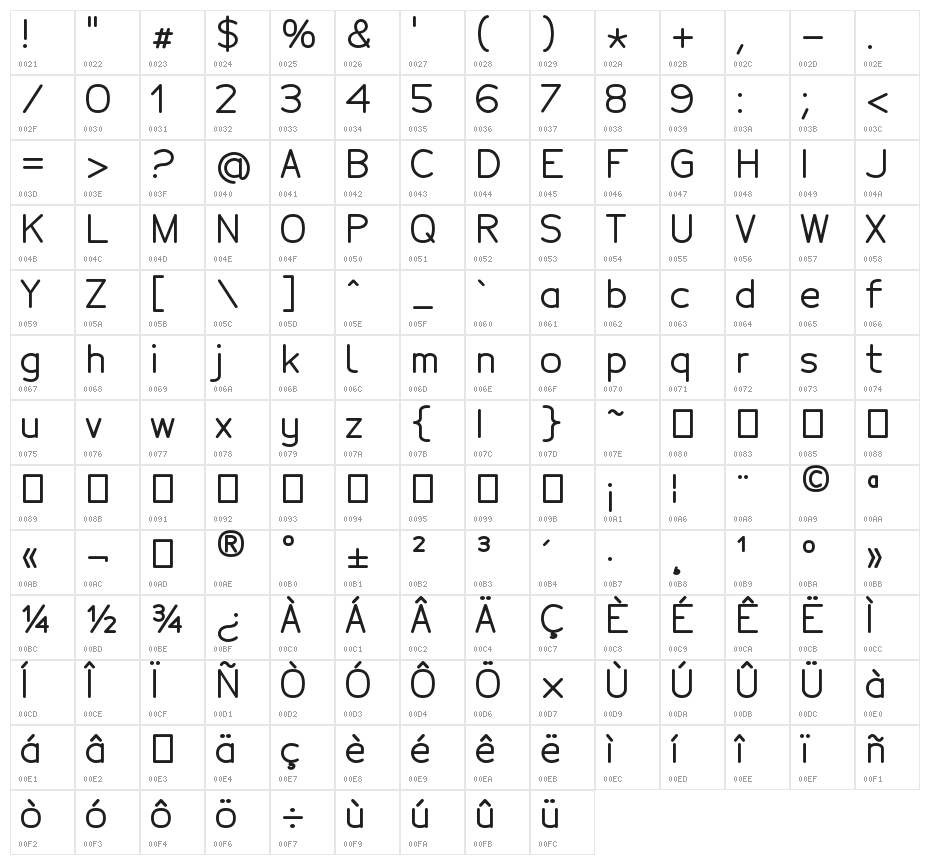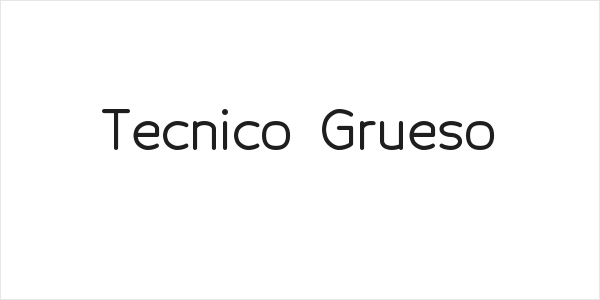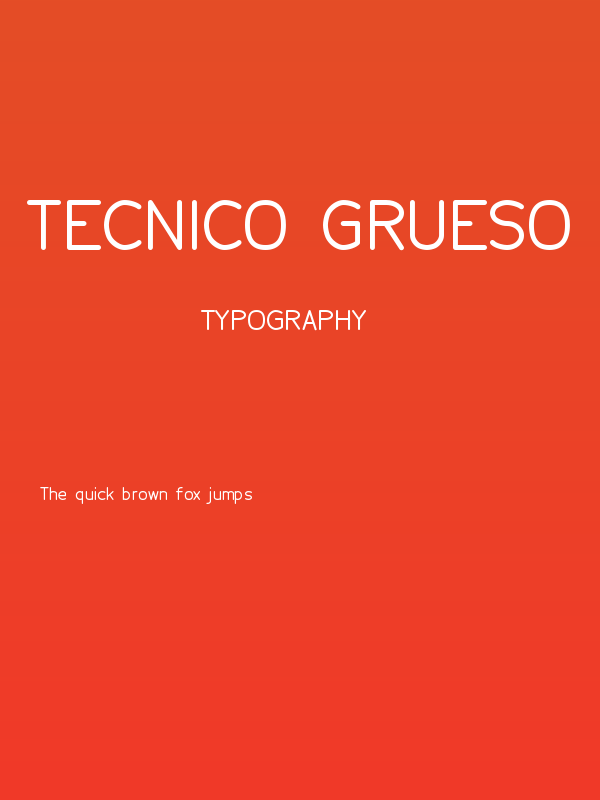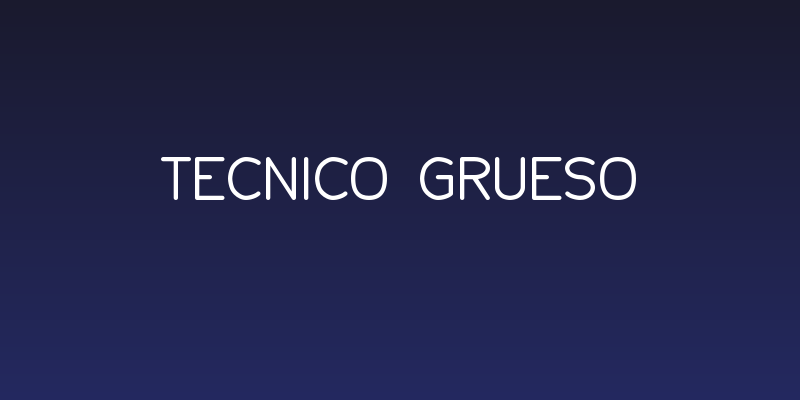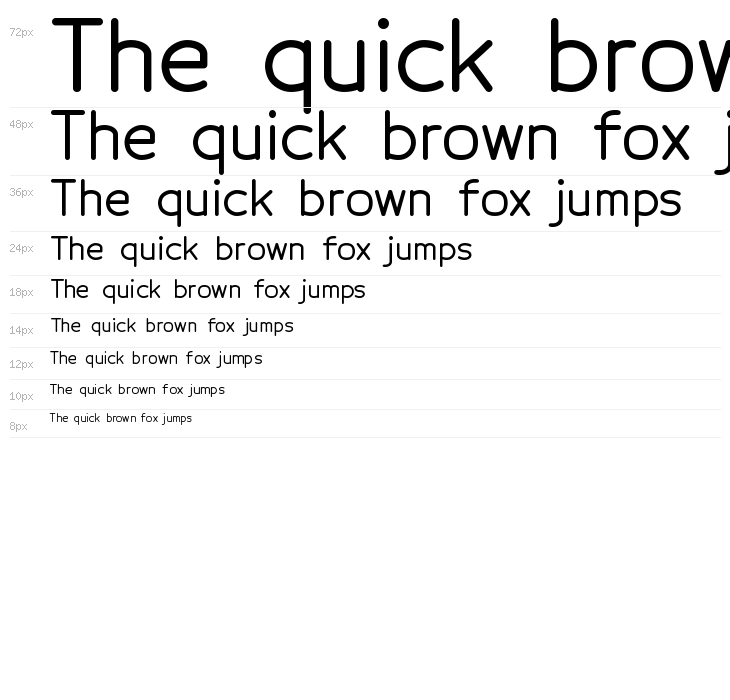
Tecnico Grueso Font
Tecnico Grueso Description
This font features a clean and modern sans-serif design with rounded edges, giving it a friendly and approachable appearance. The characters are evenly spaced, contributing to excellent readability. The uppercase and lowercase letters maintain a consistent style, with smooth curves and uniform stroke widths. The numerals are clear and distinct, making them suitable for various applications. Special characters are well-integrated, ensuring versatility in design projects. Overall, this font exudes a contemporary and professional vibe, making it ideal for digital and print media.
| Proposed Projects | Ideal for branding, web design, user interfaces, and print materials. |